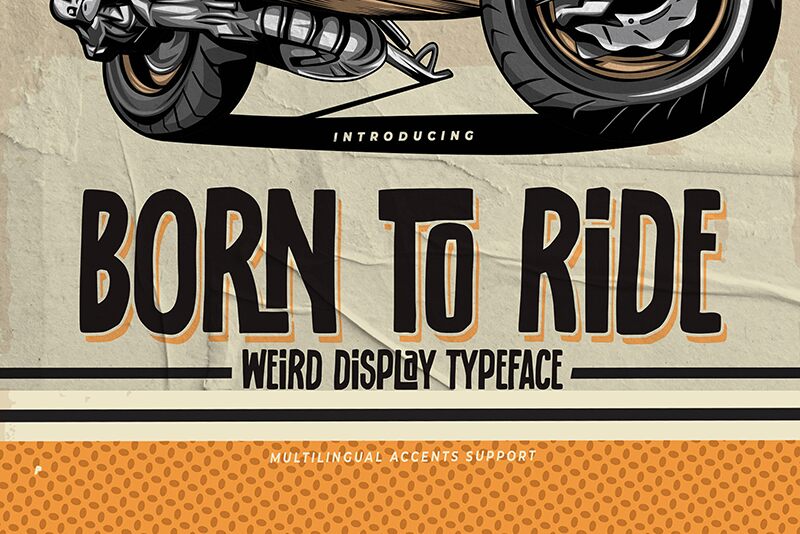
born to ride
Born to Ride, a distinctive display typeface by Gassstype, captures the essence of modern style with its dramatic movement and casually swift script. This condensed font is a true standout, embodying a unique blend of roughness and elegance that can elevate any creative project. From the textured feel that gives designs an organic touch to the inclusion of ligature glyphs for typographic variety, Born to Ride is not just a font-it's a statement.
Ideal for an array of applications, this typeface shines in contexts requiring boldness and character-think striking labels, eye-catching posters, or compelling branding elements. Its versatility extends to packaging design, greeting cards, and even digital overlays on photography. For creators seeking to infuse their work with an authentic and modern vibe while maintaining readability and impact, Born to Ride offers an unparalleled typographic solution.